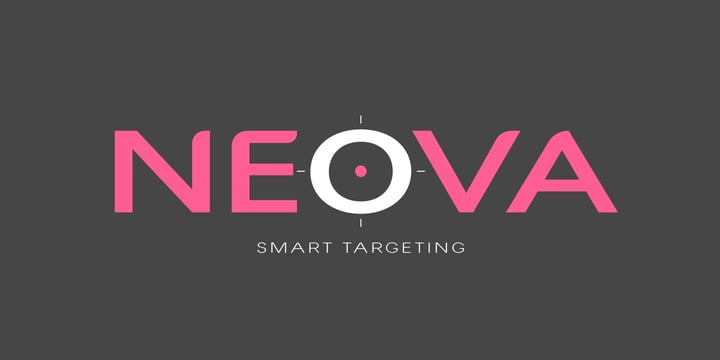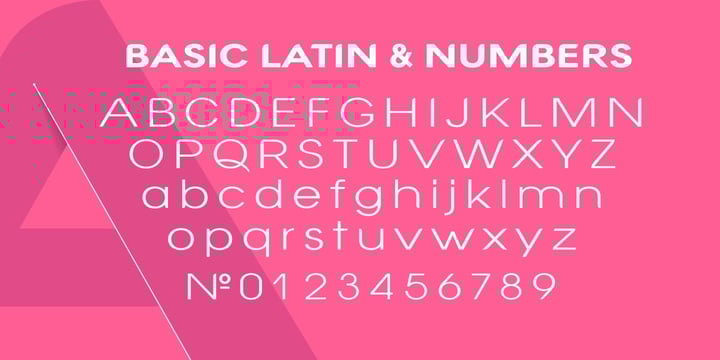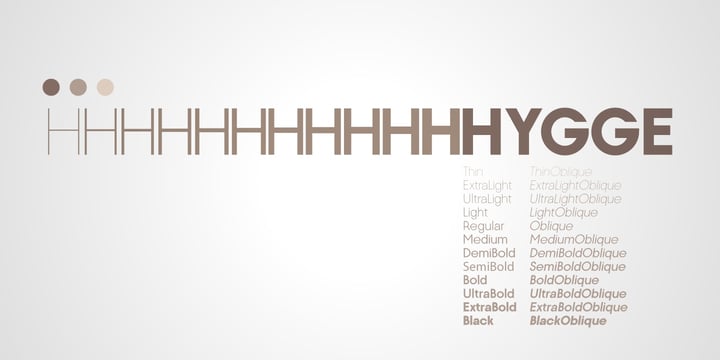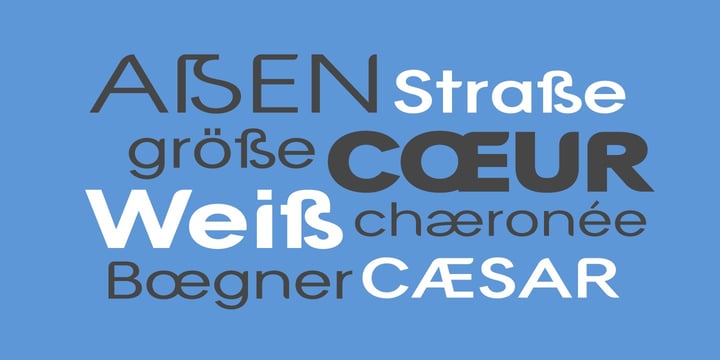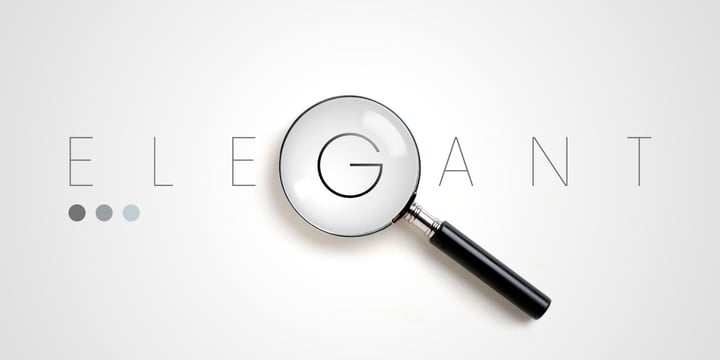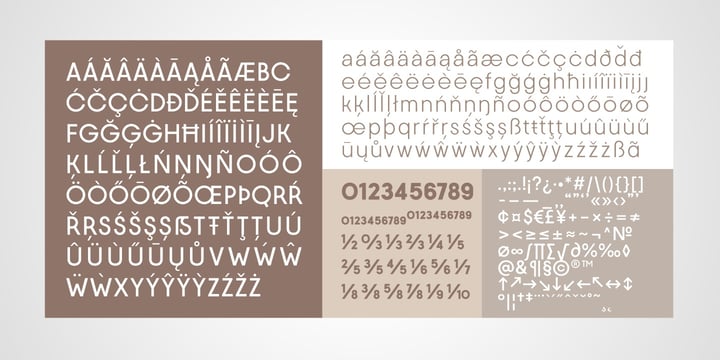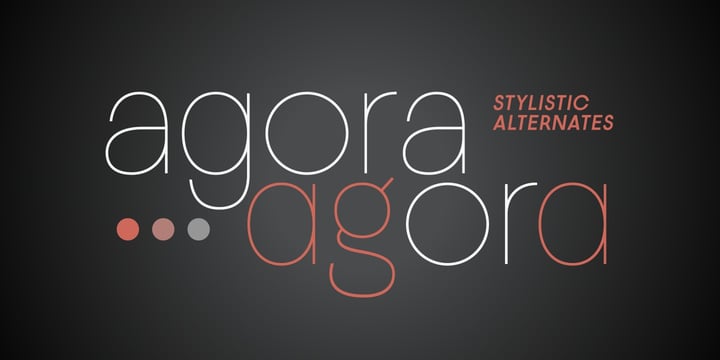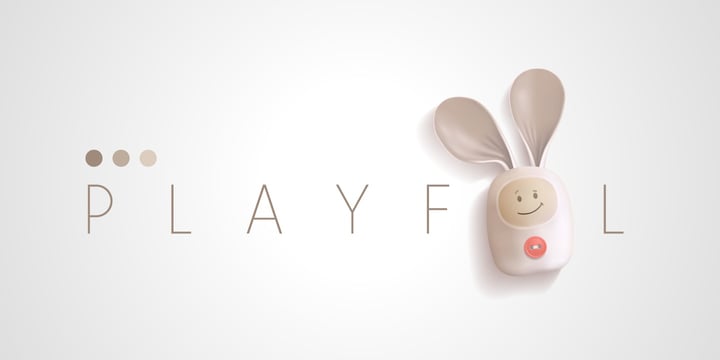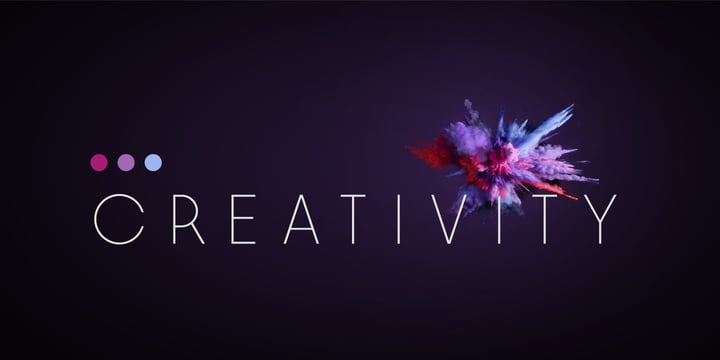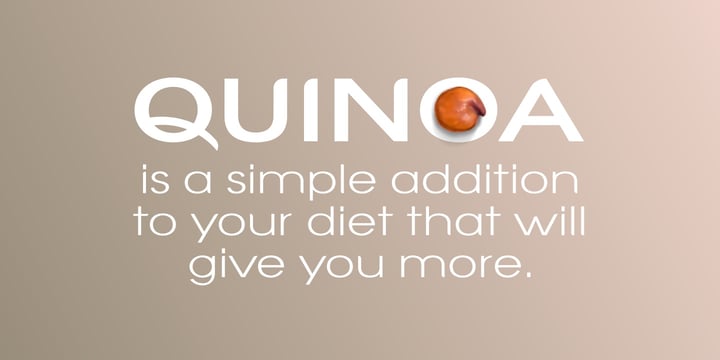
Modern Grace Collection
Modern Grace Collection is a curated bundle of stylish and refined sans-serif fonts designed to bring sophistication to your projects. With clean lines, elegant proportions, and a contemporary feel, these typefaces are perfect for branding, editorial design, social media, and high-end visuals. Elevate your typography with the timeless charm of modern grace.